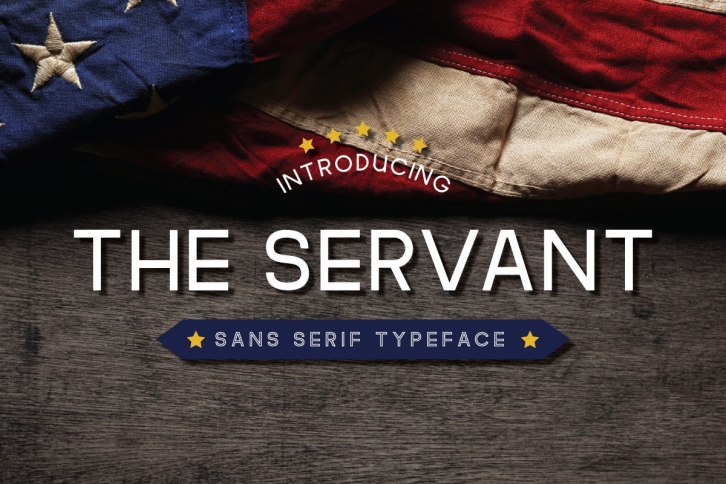
The Servant, beautiful sans serif , with a simple, clean, and unique sans-serif font inspired by Memorial day.
Font Features:
Regular (Clean), Italic & Outline versions, Uppercase characters, Lowercase characters, Punctuation, Numbers, and Multilanguage.
The Servant is the unique typeface for body text, magazine covers, book, badges, headlines, display graphics, wedding invitation, and creative displays and logo designs.
It pairs well with other handwritten, script, serif and sans-serif fonts.